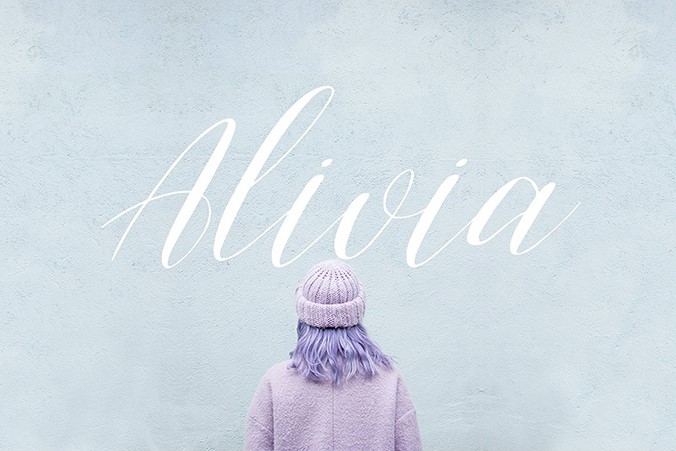
Alivia Script Font
Alivia Script Font extensively utilized in illustrator and it’s also used on websites. This is similar to the love mile font and it is also used for its pairing function. You‚Äôll be stimulated through the way of the beneficial aid of masses of those fonts. Keep in thoughts regardless of the fact that that locating the first-rate font is pleasant in reality a place to begin.
Much like blackletter font this well-known font ideally fitted for photograph layout applications beginning from the editorial, organisation, net, interplay to product layout. Alivia Script Font Free Furthermore to the ordinary styles, the trade variations will turn the font proper right into a first-rate companion for modern-day-day-day, technical, and present-day impressions in addition to immoderate unique, luxurious, and timeless. Consists of a whole set of characters that lets you deal with numerous languages in its four variations. Consequently, barlow font can be seen as a right away partner to the mobile smartphone font’s family.